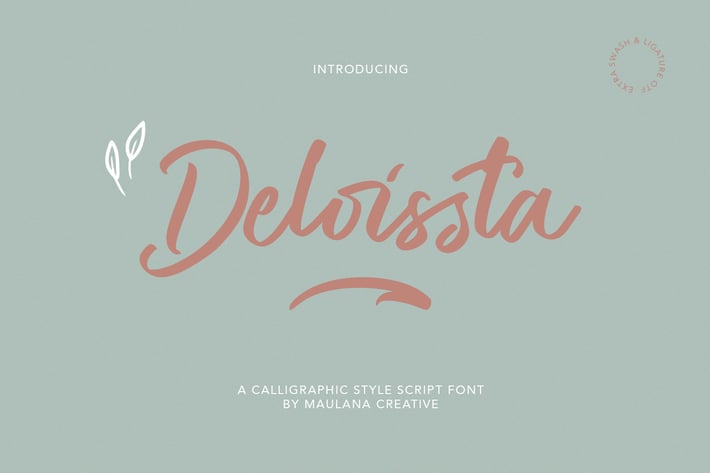
Deloissta Script Font
Give your designs an authentic handcrafted feel. "Deloissta Script Font" is perfectly suited to poster, stationery, logo, typography quotes, magazine or book cover, website header, clothing, branding, packaging design and more.